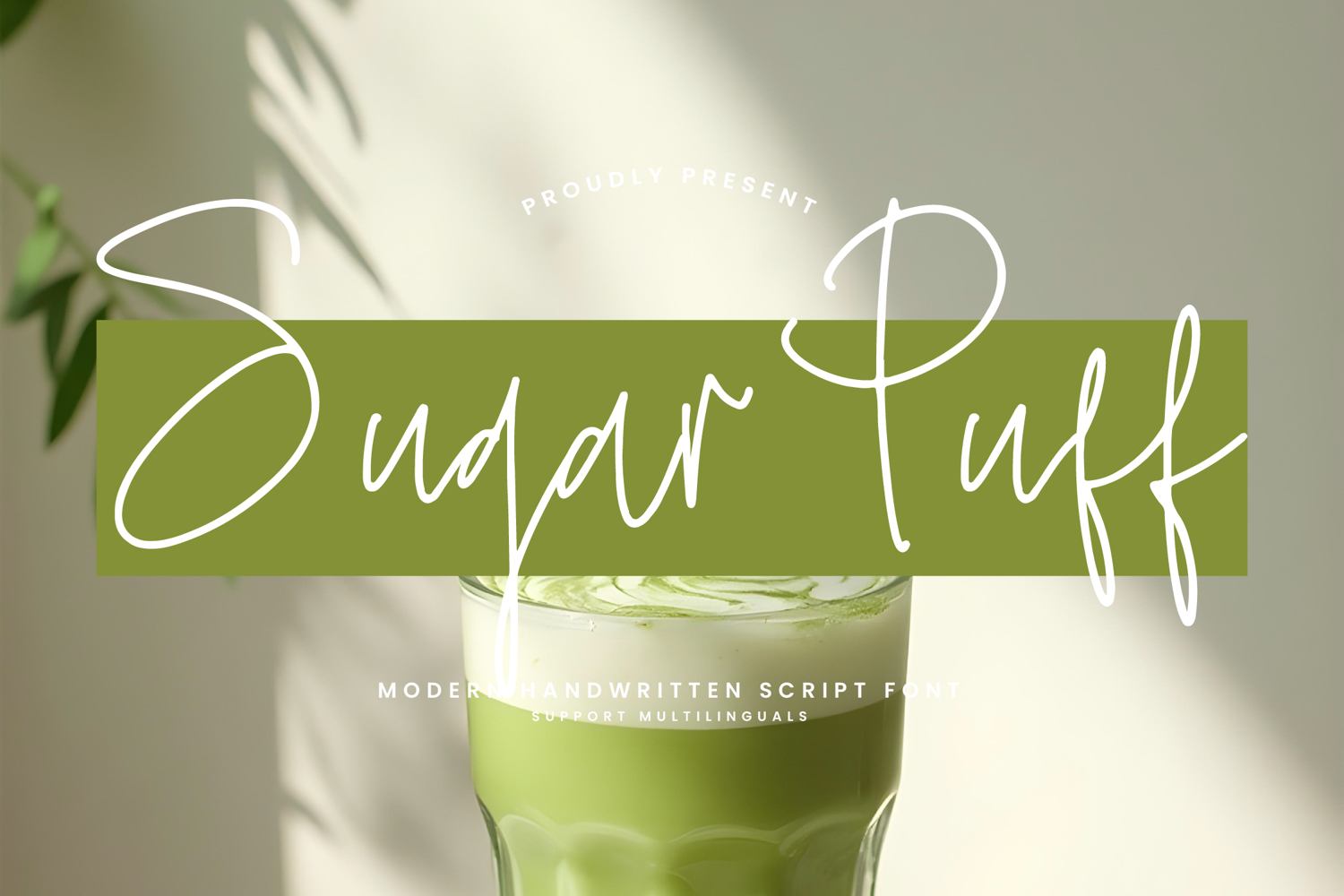
Sugar Puff - Modern Handwritten Script Font
Sugar Puff is a modern monoline font that blends clean, consistent lines with a minimalist style, making it perfect for a variety of design projects. Its sleek, smooth strokes provide a sophisticated and professional look, ideal for branding, logos, websites, invitations, and more. With its elegant curves and high legibility, Sugar Puff delivers a timeless aesthetic that works effortlessly across both digital and print formats. Enhance your designs with Sugar Puff today and give your work a contemporary, polished edge.
Ligatures, Alternate & Swashes